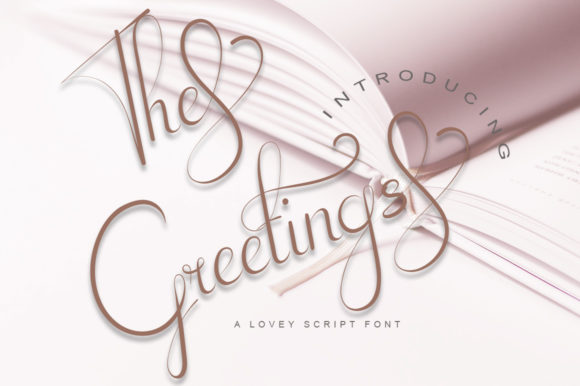
Experience a world of enchantment with The Greetings Font – a captivating script font that transports you to a realm of creativity and elegance. Its slender lines dance and flow like a gentle breeze, embodying the essence of handwritten artistry. With a single click, unlock the potential to transform your designs into exquisite masterpieces.
Immerse yourself in The Greetings Font's boundless versatility. Whether you seek to craft a modern logo that radiates sophistication or design enchanting invitations that captivate hearts, this font is your muse. Its delicate strokes weave a magical aura, adding a touch of timeless charm to every project. Discover the limitless possibilities that await as you unleash your imagination with The Greetings Font.
Designed with love and meticulous attention to detail, The Greetings Font captures the essence of heartfelt expression. Each letterform is a work of art, crafted to evoke emotion and leave a lasting impression. Let your words dance across the page, carried by the graceful curves and elegant flourishes of this breathtaking font.
Elevate your creative projects to new heights with The Greetings Font. Its PUA encoding grants you effortless access to a treasure trove of glyphs and swashes, empowering you to unleash your creativity without limits. Experience the joy of seamless design as you effortlessly create stunning logos, eye-catching social media posts, and unforgettable branding materials.
Embrace the allure of The Greetings Font and embark on a journey of self-expression. Let your designs radiate with the charm of handwritten artistry, captivating your audience with every stroke. Indulge in the beauty of The Greetings Font and unlock the door to a world of creative possibilities, where your vision knows no bounds.